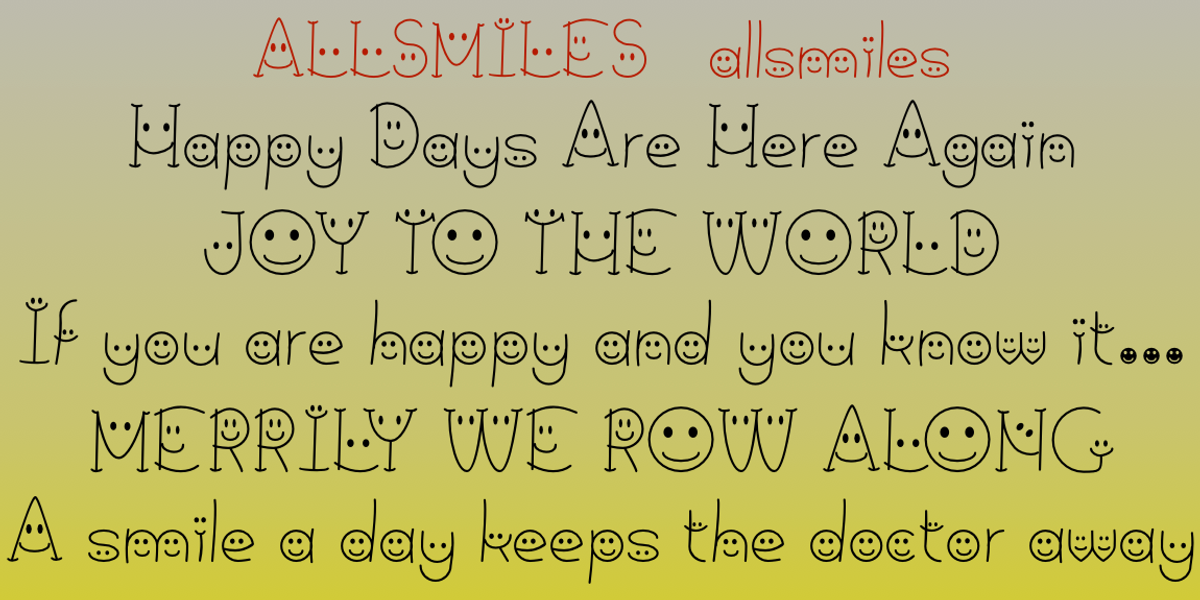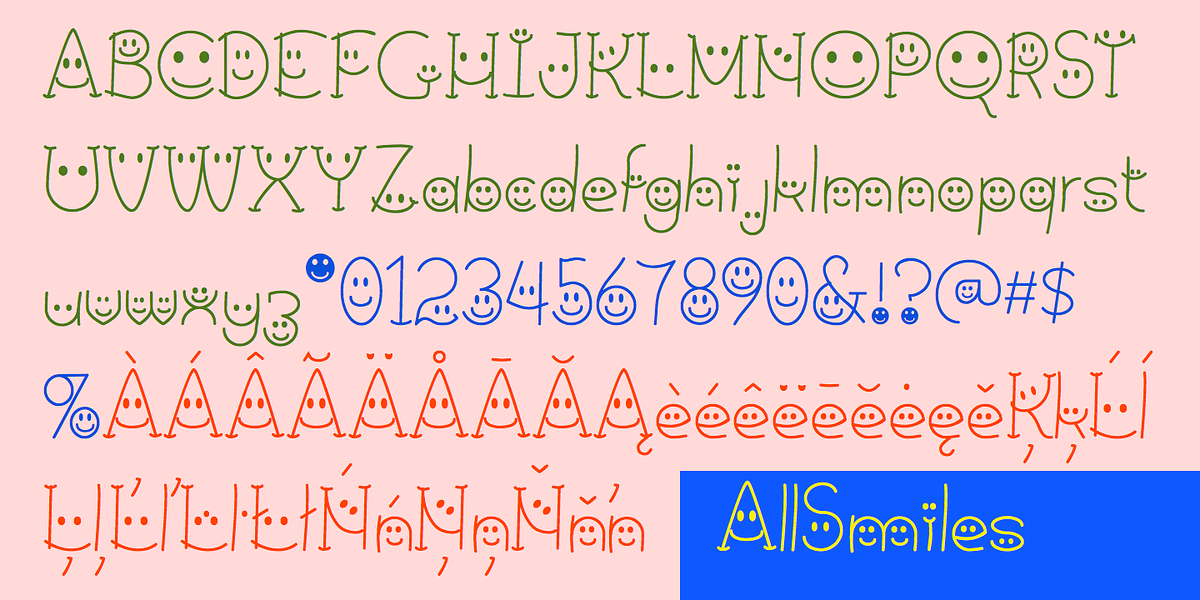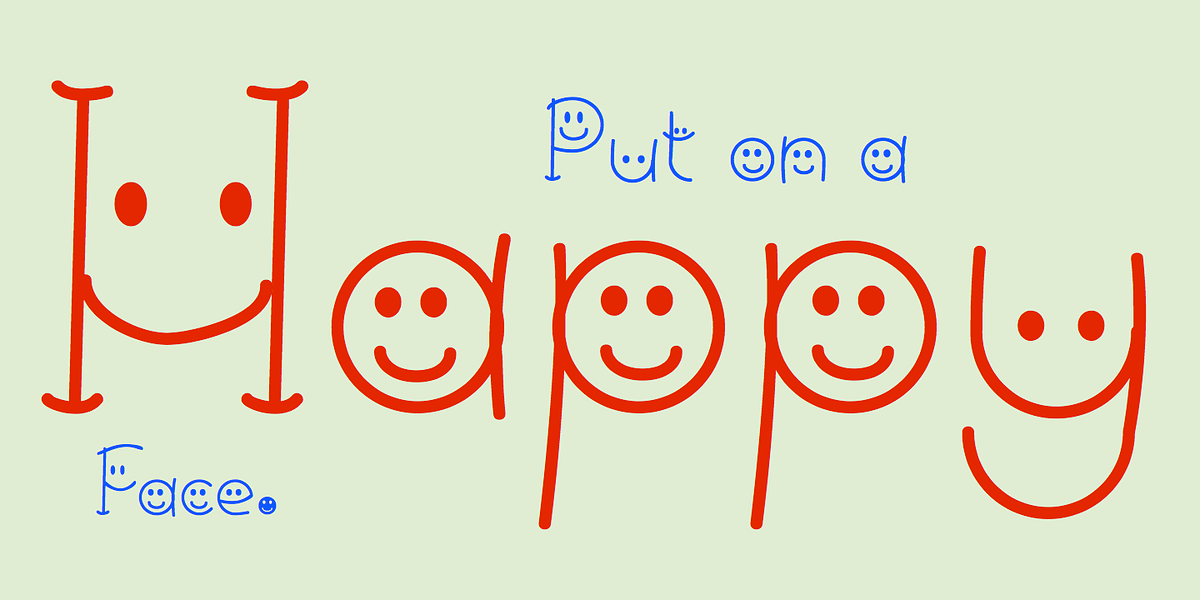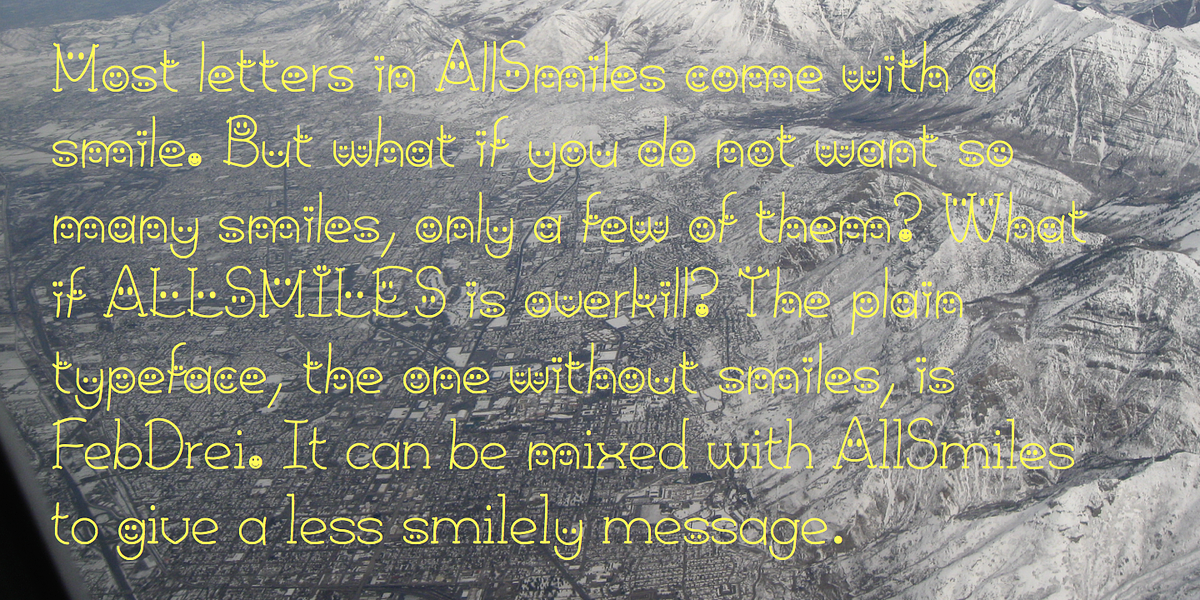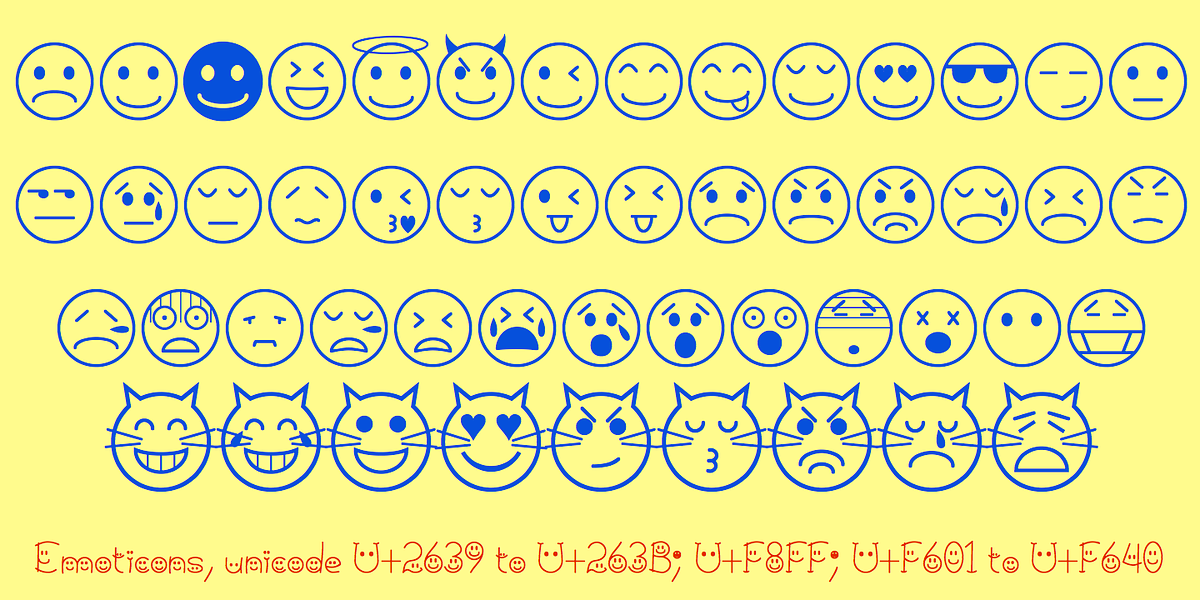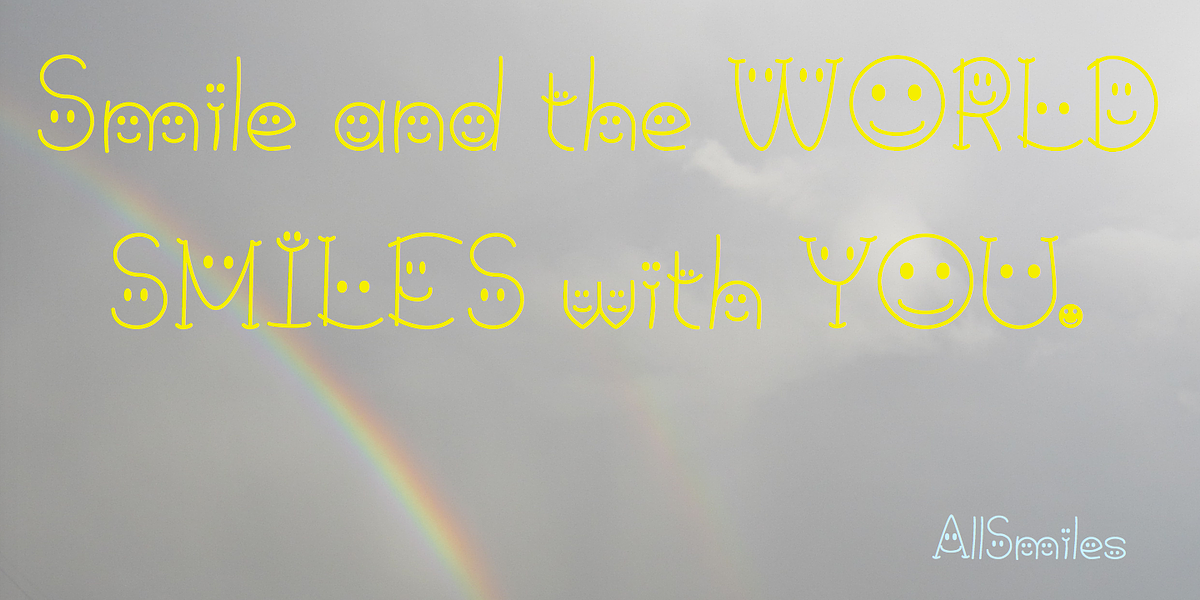
AllSmiles
AllSmiles is a novelty typeface designed for playful and cheerful communication. Its defining feature is the use of smiling faces for letterforms. The font includes emoticons in appropriate Unicode slots, allowing for versatile expressions. A 'sad' version called BringInTheFrowns and a simpler version named FebDrei are also available.